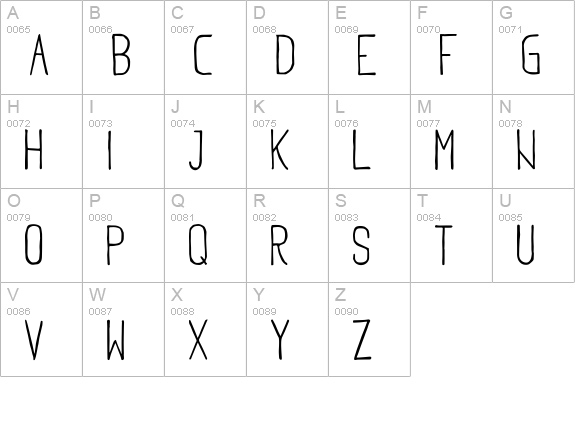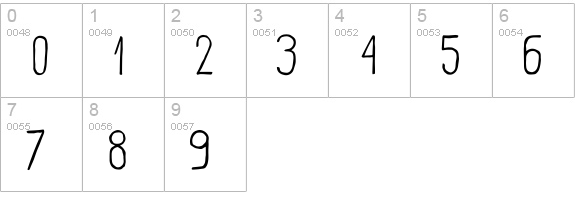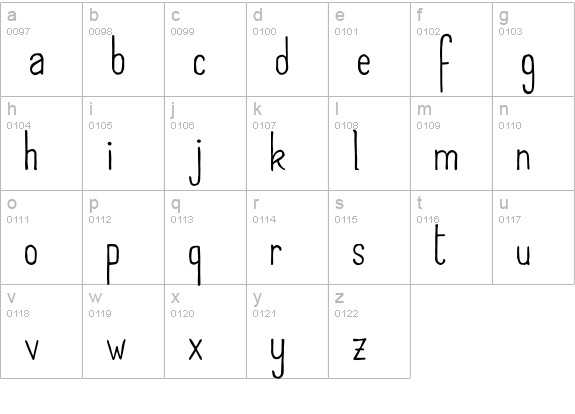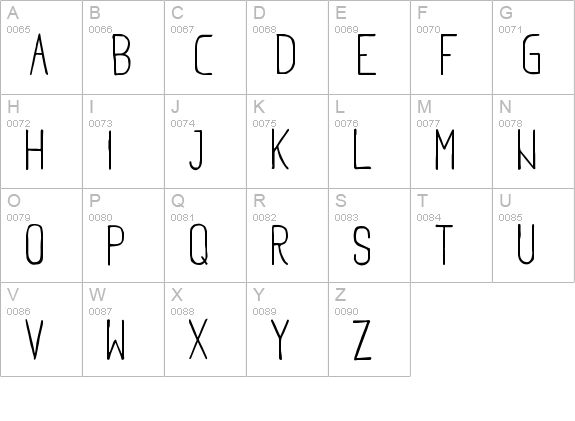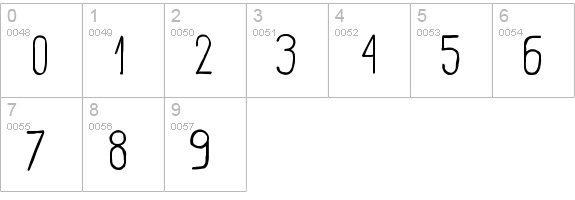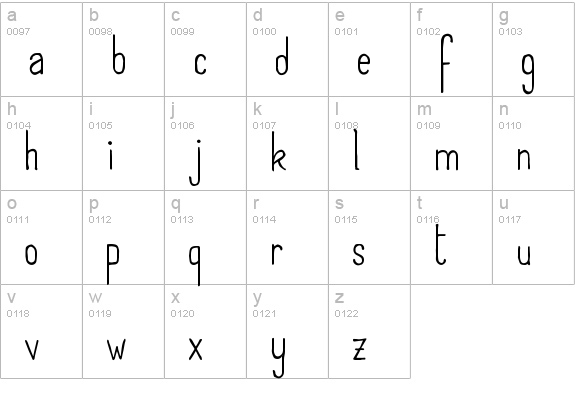
SkinnyCond Regular is the standard, neutral variant in the SkinnyCond typeface family \xE2\x80\x94 well suited to general body text, paragraphs, and standard typographic work.
SkinnyCond Regular font is a sleek and modern typeface that exudes elegance and sophistication. With its slender and condensed design, this font is perfect for creating a stylish and upscale look in various design projects. Whether you're working on branding, packaging, or editorial designs, SkinnyCond Regular font will add a touch of sophistication to your creations. What's even better is that SkinnyCond Regular font is available for free download at FontsMarket.com. This means you can easily access this stunning font and use it in your projects without any cost. So why wait? Download SkinnyCond Regular font today and elevate your designs with its chic and contemporary style.